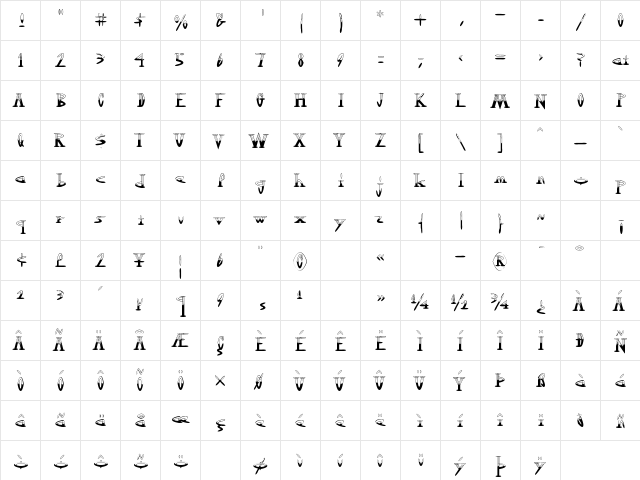
OutwestHalfFull Regular
Design Context for OutwestHalfFull Typeface
OutwestHalfFull is a composed and adaptable typeface that performs quietly and consistently across a wide range of design contexts.